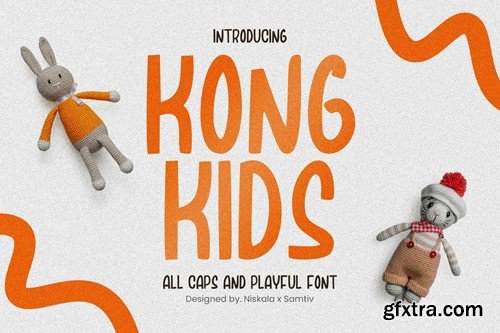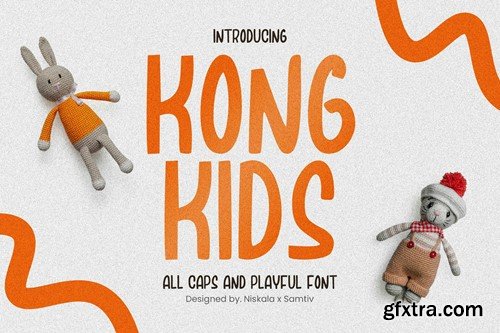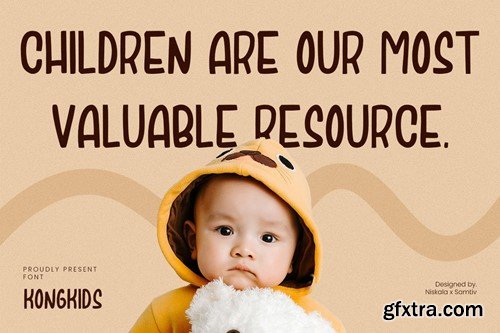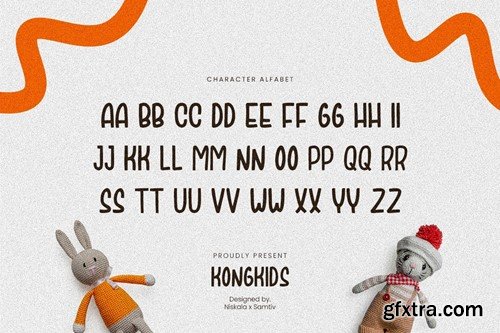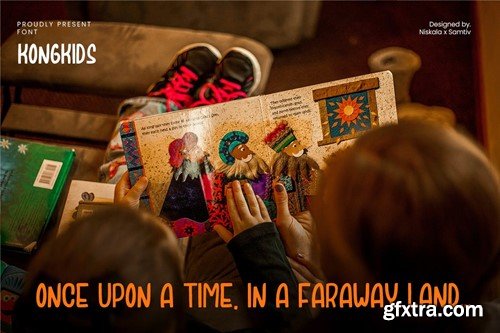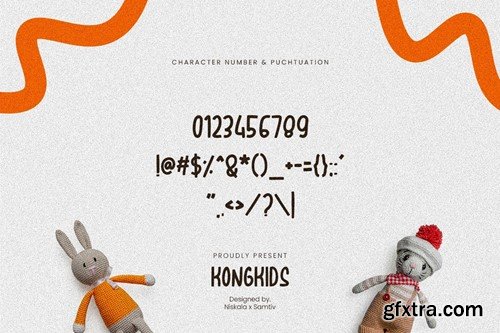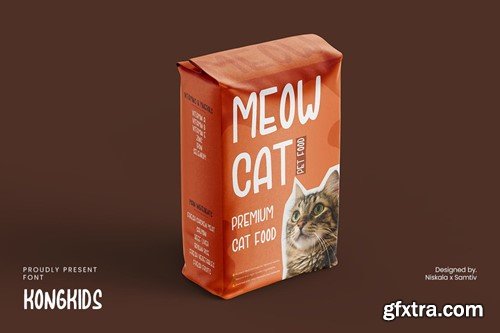
KongKids - A Modern Playful Handwritten Font
KongKids - All Caps Display Font is an awesome with modern cutouts, and a dynamic slant. Ideal for Poster titles, menu flyer, Packaging, Logo and monograms or other modern dynamic text. KongKids compares favorably with legibility and size, creating the effect of power. Designed as a fast and dynamic font, but with a slightly different font design, check it out and grab it right away. **Download KongKids ** for your next project today. Featured: File Included : Thank you for checking and I hope you enjoy it. Always put your heart into it and don’t worry about trying. I hope you have as much fun using it as I did making it